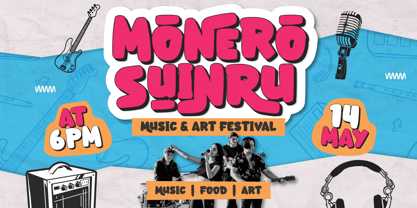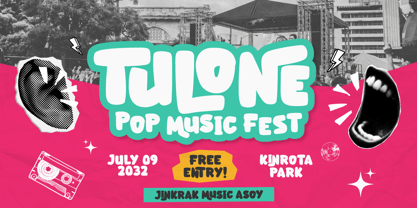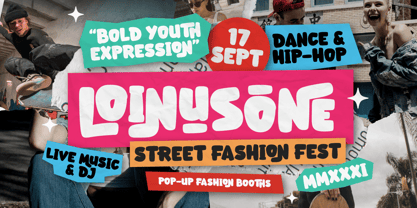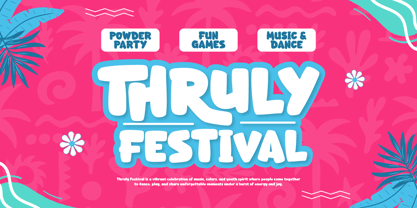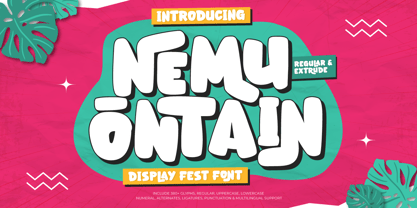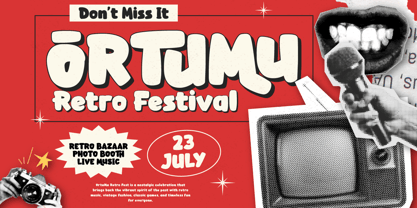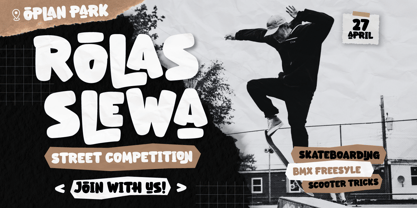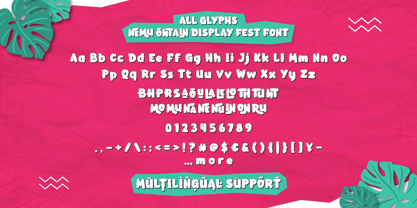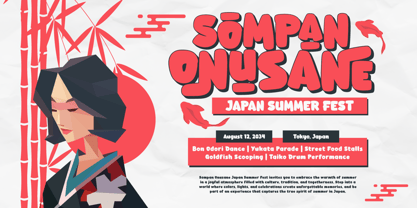
Nemu Ontain
The Nemu Ontain Font Family was designed by Rozikan and published by Twinletter. Nemu Ontain contains 2 styles and family package options. More about this family
MAKE A LOUD STATEMENT WITH ENERGETIC, FESTIVAL-READY TYPOGRAPHY.
Nemu Ontain is a bold and spirited display font, dripping with the untamed energy of music festivals and street culture. Designed to command attention, its expressive characters and striking extruded effect make every word a headline act. This font brings a vibe of pure joy, freedom, and unforgettable fun to any project that dares to be different.
This powerful font family comes with two standout styles—Regular and Extrude—giving you the ultimate flexibility to create dynamic typography with depth and movement. Packed with over 360 glyphs, including uppercase, lowercase, numerals, alternates, ligatures, punctuation, and extensive multilingual support, Nemu Ontain is the perfect choice for concert posters, festival merchandise, high-energy branding, album covers, social media, and any project that needs a bold, artistic edge.
Elevate your design from standard to spectacular with Nemu Ontain—a font that’s energetic, solid, and full of style!
- All glyphs and Feature
- Multilingual Support: Fully supports 85+ languages, including:
Afrikaans, Albanian, Asu, Basque, Bemba, Bena, Breton, Catalan, Chiga, Cornish, Croatian, Czech, Danish, Dutch, Embu, English, Esperanto, Estonian, Filipino, Finnish, French, Friulian, Galician, Gusii, Hungarian, Indonesian, Irish, Italian, Kabuverdianu, Kalenjin, Kamba, Kikuyu, Kinyarwanda, Latvian, Lithuanian, Lower Sorbian, Luo, Luxembourgish, Luyia, Machame, Makhuwa-Meetto, Makonde, Malagasy, Maltese, Manx, Meru, Morisyen, North Ndebele, Norwegian Bokmål, Norwegian Nynorsk, Nyankole, Oromo, Polish, Portuguese, Quechua, Romanian, Romansh, Rombo, Rundi, Rwa, Samburu, Sango, Sangu, Scottish Gaelic, Sena, Serbian, Shambala, Shona, Slovak, Slovenian, Soga, Somali, Spanish, Swahili, Swedish, Swiss German, Taita, Teso, Turkish, Upper Sorbian, Uzbek (Latin), Volapük, Vunjo, Walser, Zulu.